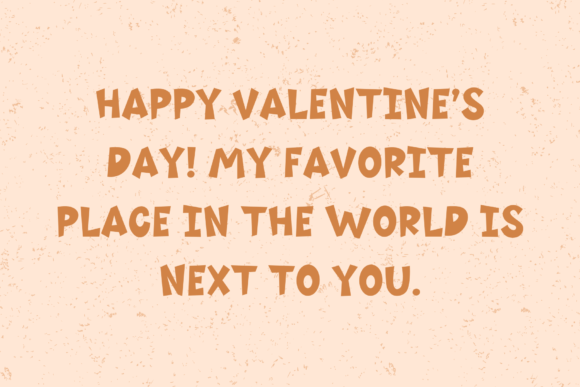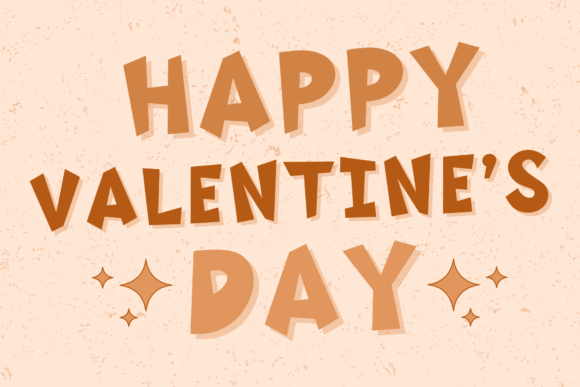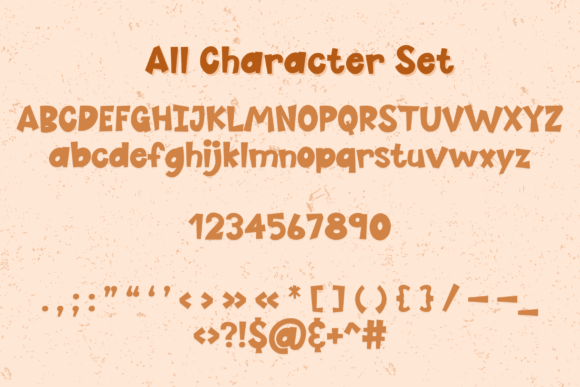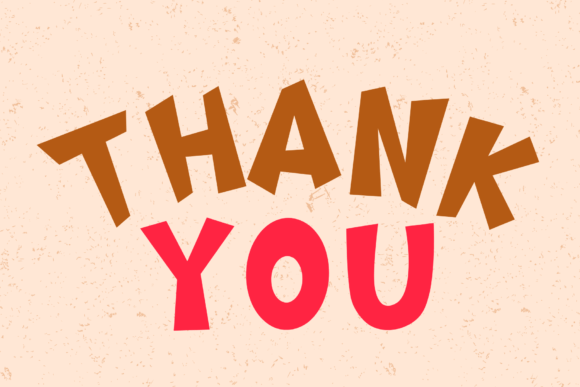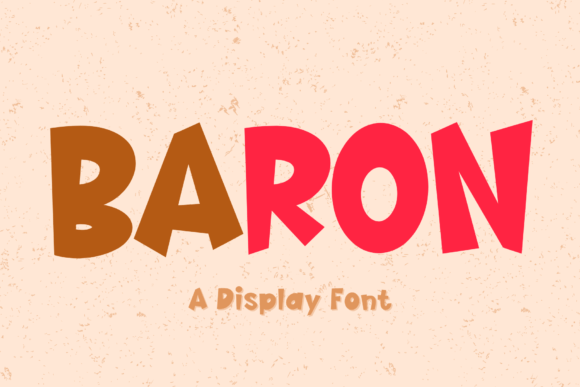
Introducing Baron Font: The Perfect Choice for Creative Projects
Are you a designer, crafter, or DIY enthusiast looking for a font that embodies playfulness and authenticity? Look no further than Baron Font! This display font is the perfect choice for adding a touch of personality to your favorite projects, from blog posts and logos to branding, ads, invitations, and more.
What is Baron Font?
Baron Font is a unique and versatile display font that is designed to make a statement. Its playful and authentic style makes it perfect for a wide range of creative projects, from digital designs to print materials. Whether you’re looking to add a touch of whimsy to your blog posts or create a bold and eye-catching logo, Baron Font is the perfect choice.
Key Features of Baron Font
• Playful and Authentic Style: Baron Font has a unique and playful style that is sure to add a touch of personality to your designs.
• Versatile: This display font is perfect for a wide range of creative projects, from digital designs to print materials.
• Easy to Read: Despite its playful style, Baron Font is easy to read and understand, making it perfect for use in body text and headlines.
• High-Quality Design: Baron Font is designed with high-quality graphics, ensuring that it looks great in any design.
Uses for Baron Font
Baron Font is perfect for a wide range of creative projects, including:
• Blog Posts: Add a touch of personality to your blog posts with Baron Font.
• Logos and Branding: Create a bold and eye-catching logo with Baron Font.
• Ads and Marketing Materials: Use Baron Font to create eye-catching ads and marketing materials.
• Invitations and Greeting Cards: Add a touch of whimsy to your invitations and greeting cards with Baron Font.
• Planners and Photo Albums: Use Baron Font to add a personal touch to your planners and photo albums.
• Decorations: Baron Font is perfect for use in decorations, such as party banners and DIY crafts.
Why Choose Baron Font?
There are many reasons why Baron Font is the perfect choice for your creative projects. Here are just a few:
• Unique Style: Baron Font has a unique and playful style that is sure to set your designs apart.
• High-Quality Design: Baron Font is designed with high-quality graphics, ensuring that it looks great in any design.
• Versatile: Baron Font is perfect for a wide range of creative projects, from digital designs to print materials.
Tips for Using Baron Font
Here are a few tips for using Baron Font in your designs:
• Use it as a Headline Font: Baron Font is perfect for use as a headline font, adding a touch of personality to your designs.
• Pair it with Other Fonts: Baron Font can be paired with other fonts to create a unique and eye-catching design.
• Experiment with Colors: Baron Font looks great in a variety of colors, so don’t be afraid to experiment and find the perfect color for your design.
In conclusion, Baron Font is the perfect choice for any designer, crafter, or DIY enthusiast looking to add a touch of personality to their creative projects. With its playful and authentic style, versatility, and high-quality design, Baron Font is sure to become a favorite in your design arsenal. So why wait? Add Baron Font to your designs today and enjoy the results!